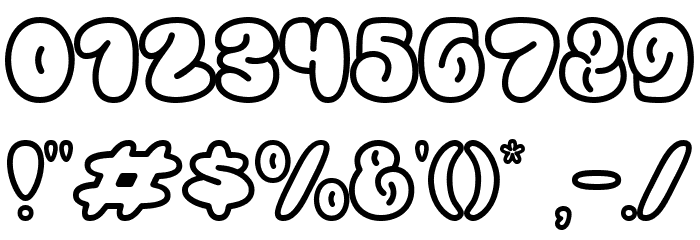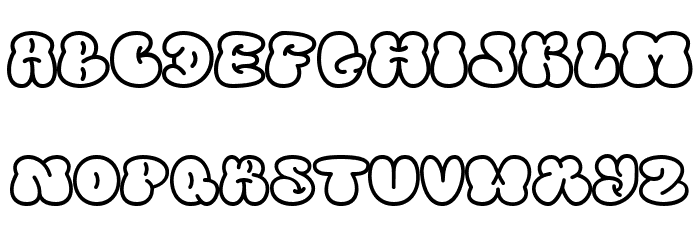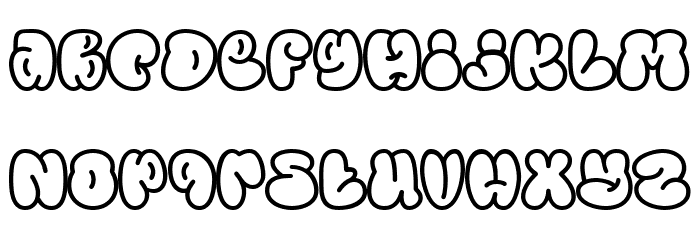
Napblow DEMO Font
Napblow DEMO Description
A playful, bubble-like decorative font with thick outlines and rounded shapes, giving a fun and whimsical appearance.
| Proposed Projects | Children's books, party invitations, playful branding. |